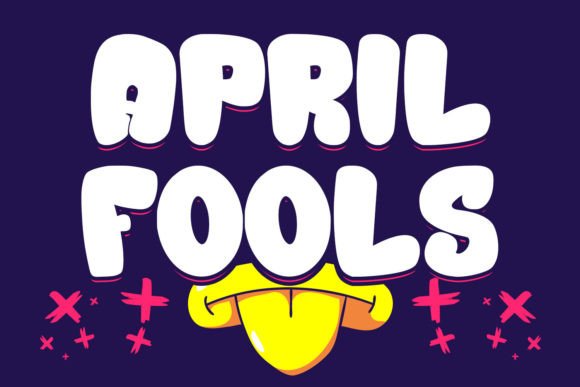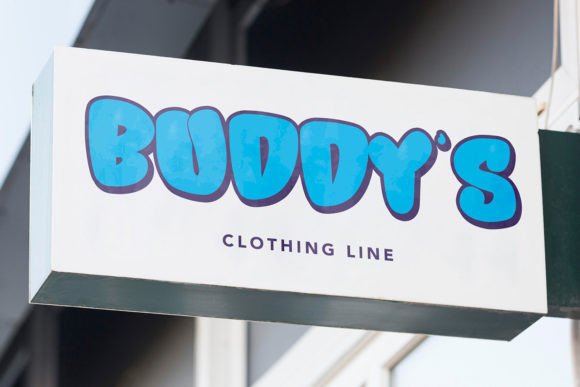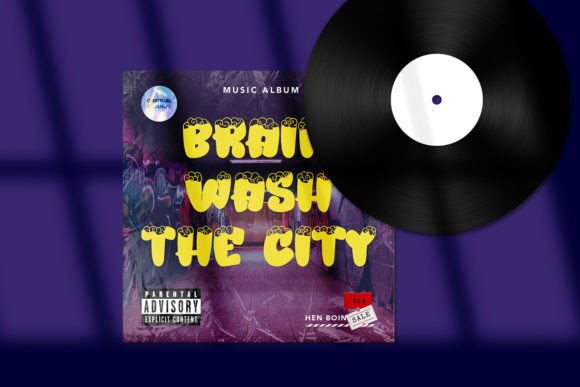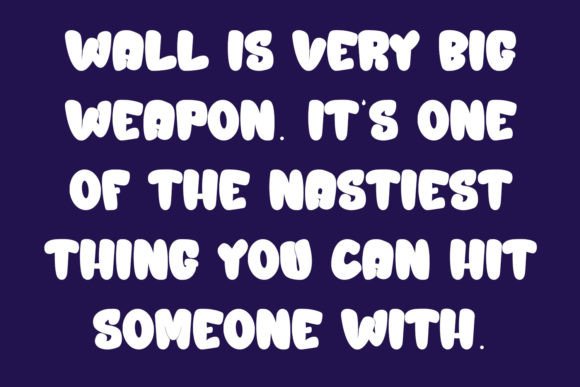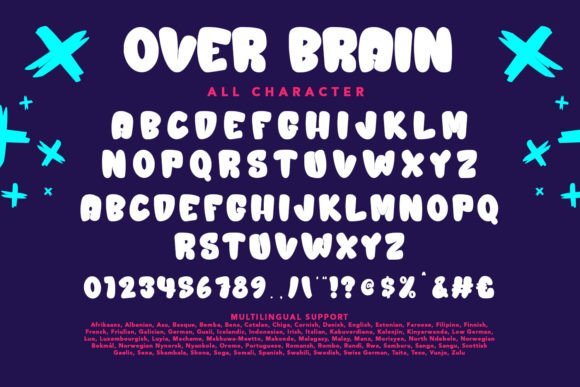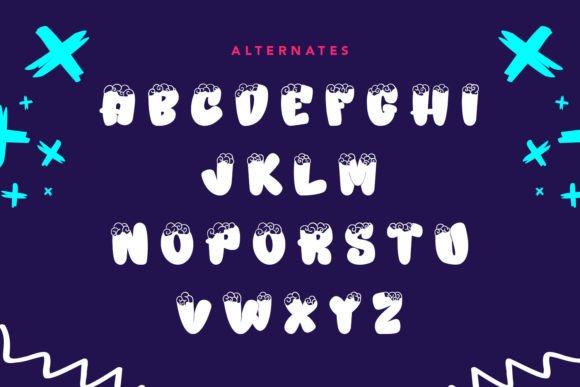
Introduction to Over Brain Graffiti Font
Over Brain is a modern round display font.
With a bold stroke and fun characters, this font is ideal for logo design, social media, movie and book titles, scrapbooking and so much more .
Key Features of Over Brain Graffiti Font
Why Choose Over Brain Graffiti Font?